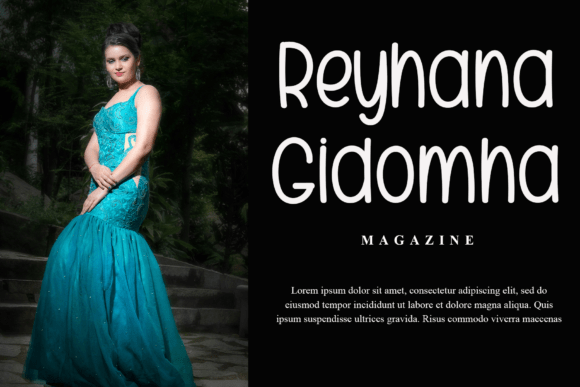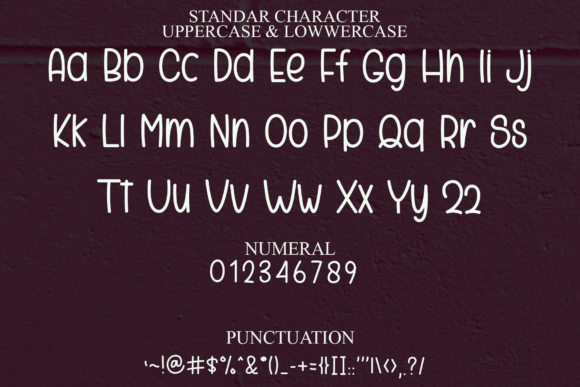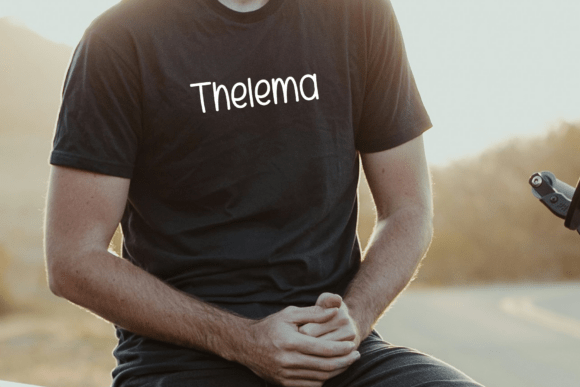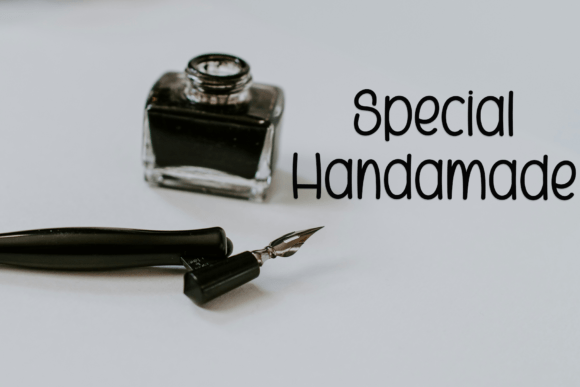
Mango Dream Font Font
Manggo Dream is a lovely and timeless handwritten font. It is the best choice for creating eye catching logos, branding and quotes. Every letter has a unique and beautiful touch, which will make your design come alive!